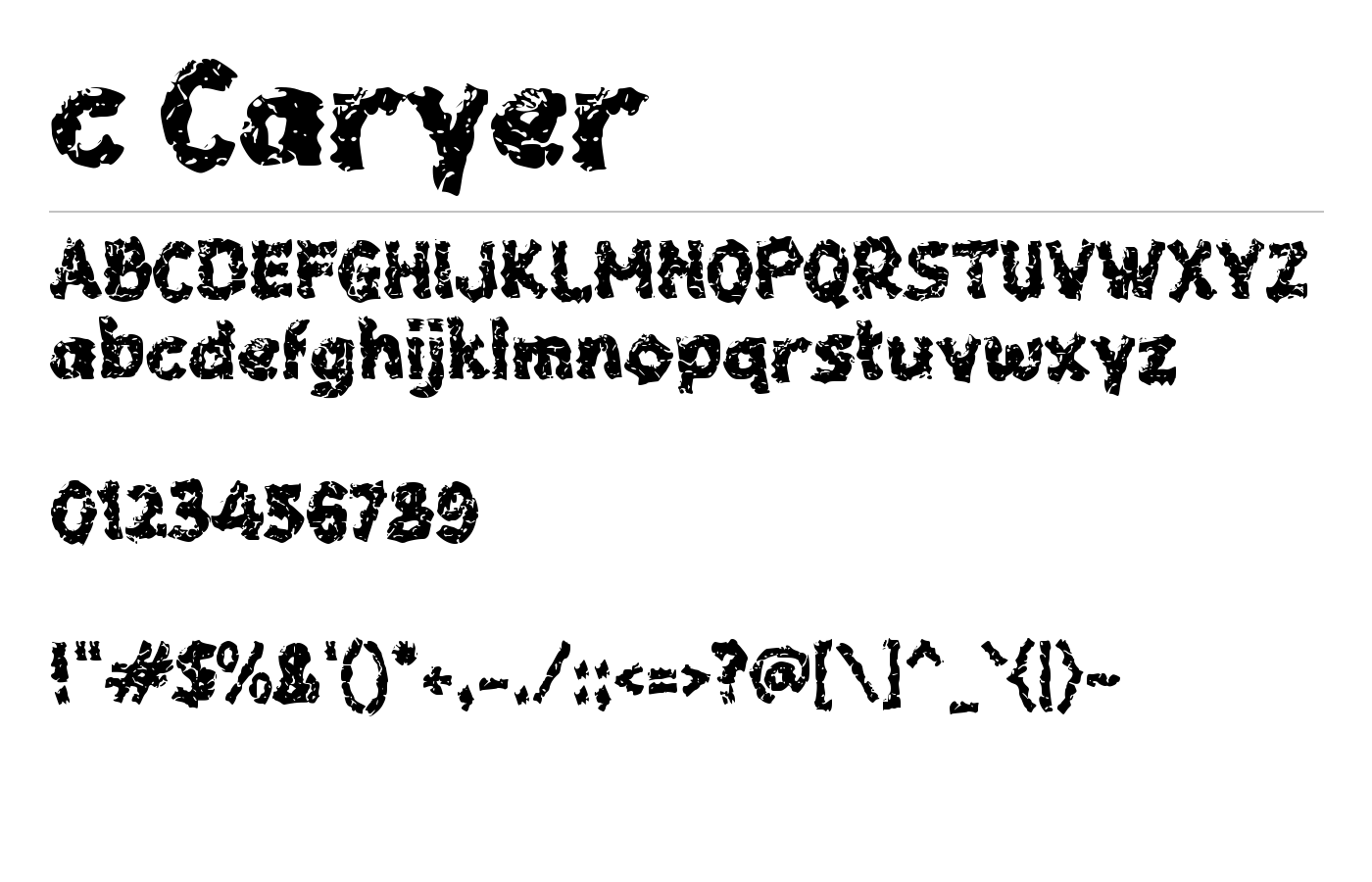
C Caryer is a bold, textured display font with a distressed, rough-edged design that gives it a hand-carved, organic feel. Its strong, irregular shapes and medium width make it eye-catching and perfect for creating a bold statement in creative or edgy branding, posters, and packaging where a unique, artistic vibe is desired. This font works best in large sizes due to its intricate details, adding personality and a rugged charm.
c Caryer Font
About c Caryer Font